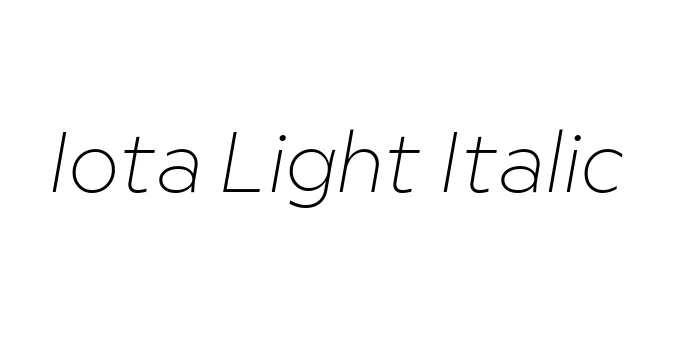
Iota Light Italic
Designed by Michael Abbink
Iota Light Italic is a sophisticated humanist sans-serif typeface that masterfully blends geometric clarity with organic, calligraphic undertones. Designed to provide a sense of transparency and lightness, this weight offers a delicate texture to typography, making it an excellent choice for high-end editorial projects and luxury branding. The italic variant is meticulously crafted to maintain legibility while introducing a dynamic rhythmic flow that guides the eye smoothly across the page.
Throughout its history, the Iota family has been celebrated for its versatile range and functional elegance. The Light Italic weight specifically excels in environments where a subtle emphasis is needed without overwhelming the surrounding text. Its open counters and distinct terminals make it highly effective for both digital interfaces and traditional print media, standing as a testament to modern minimalist design principles.
Iota Light Italic Best Uses
Ideal for pull quotes, captions, and body text in high-end magazines.
Perfect for professional business cards and stationery for a modern look.
Provides a clean and legible experience for sub-headers and digital interfaces.
The light weight adds a sense of sophistication and airiness to premium logos.